A powerful new look at history-making uses of lettering, type, and design to amplify resistance and inspire change
In chapters exploring the many ways to voice dissent (RESIST!, VOTE!, STRIKE!, TEACH!, and LOVE!), Strikethrough charts a typographic chant of resistance across more than a century of protest graphics—from nineteenth-century antislavery broadsides to the colorful affiches of the Paris 1968 uprising, and from the revolutionary Black Panther newspaper to the public awareness posters of the AIDS crisis.
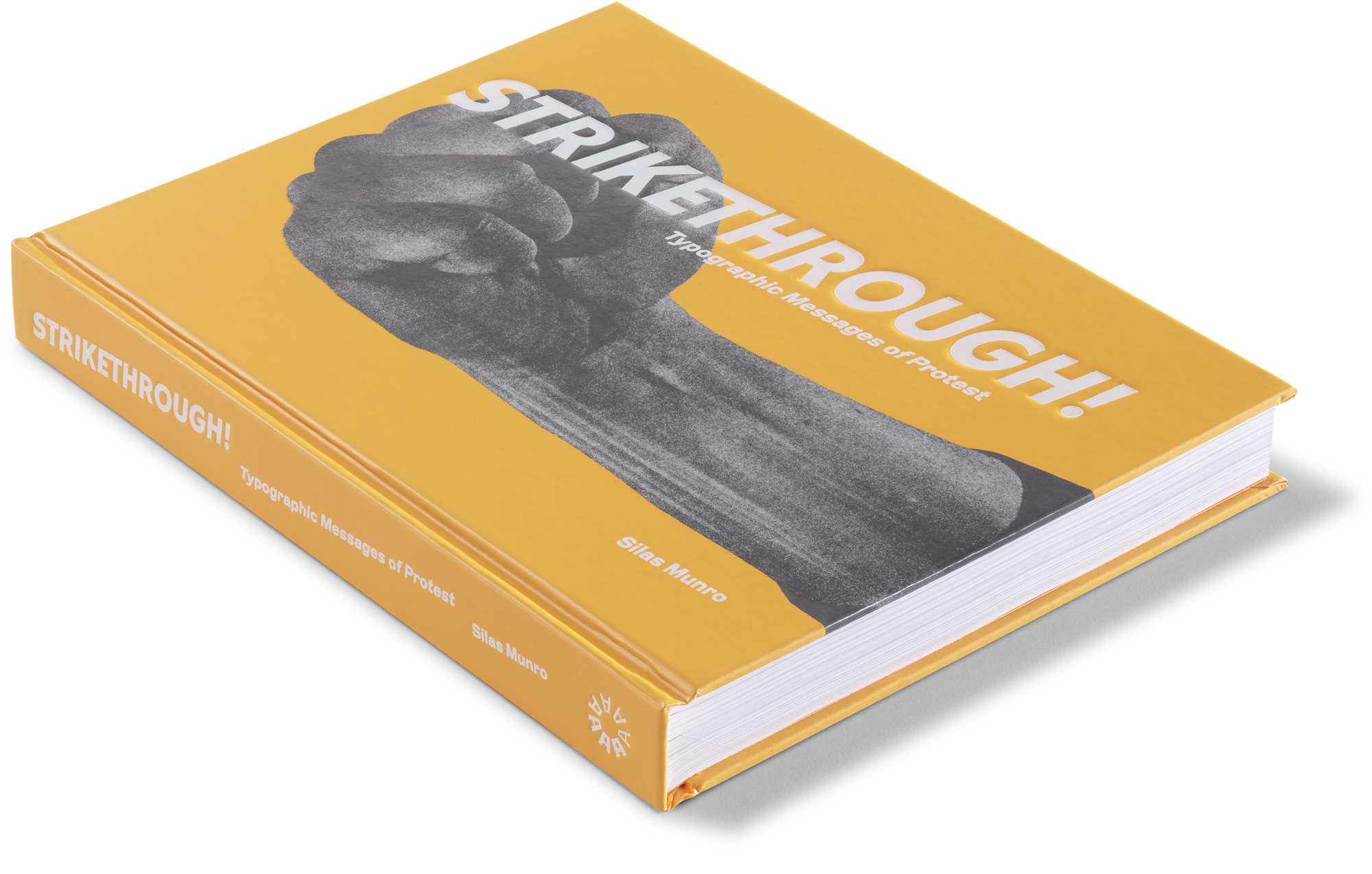
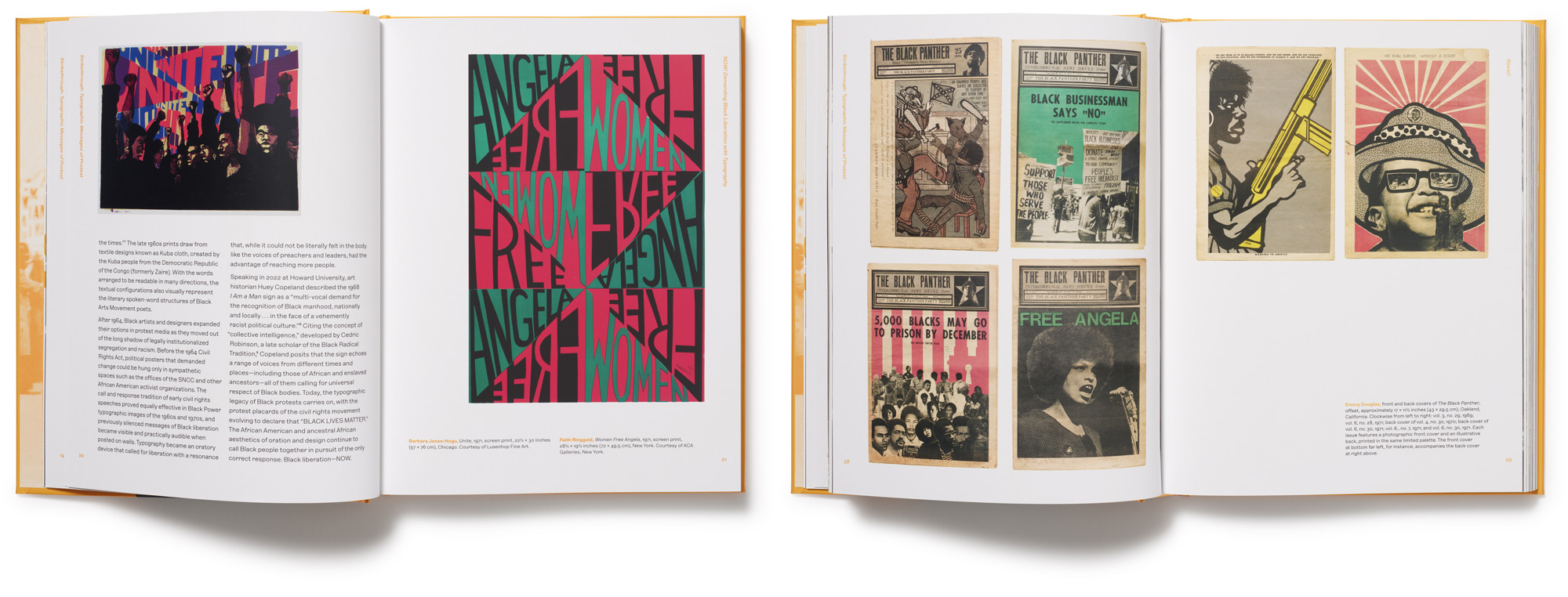
Author Silas Munro, cocreator of the first BIPOC-centered design history course, presents a vibrant collection of broadsides, signs, banners, posters, ephemera, and archival photographs, highlighting the vital roles of letterforms in messages of social change. Informed by Black musical traditions of call and response, Strikethrough amplifies design dialogues that echo across works by feminist, queer, and antiracist activists, anticolonial resisters, labor organizers, environmental defenders, and others. An introduction by Colette Gaiter, plus an essay on protest type and lettering by Stephen Coles and ten profiles of activist-designers including Corita Kent, Ben Shahn, Carlos Cortez, Favianna Rodriguez, and fierce pussy, dig deep into the storied legacies of graphic opposition.
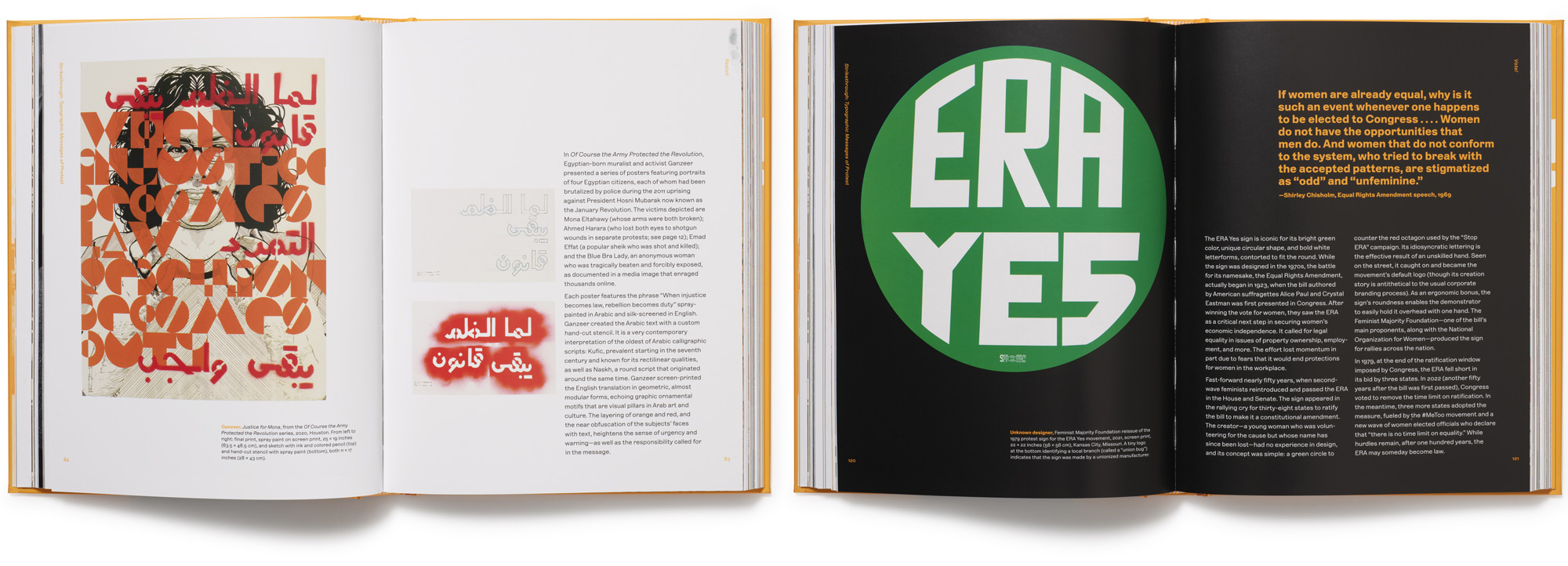
Published in connection with Letterform Archive’s latest gallery exhibition, cocurated by Munro and Coles, this hardcover catalog features state-of-the-art color reproductions and stochastic printing, a custom typeface by Trés Seals based on historical protest lettering, and a bright five-color design by Munro’s design studio Polymode. Revealing how messages make their way to the masses via marker, screen print, spray paint, collage, and both physical and digital type, Strikethrough calls on us all to make our own demands for change.
Artists and designers include: Atelier Populaire, See Red Women's Workshop, Carlos Cortez, Emory Douglas, Fierce Pussy, Ganzeer, Milton Glaser, Guerrilla Girls, Jenny Holzer, Corita Kent, Tibor Kalman, Amos Paul Kennedy Jr., Herb Lubalin, Phase 2, Favianna Rodriguez, Ward Schumaker, Ben Shahn and Wes Wilson.
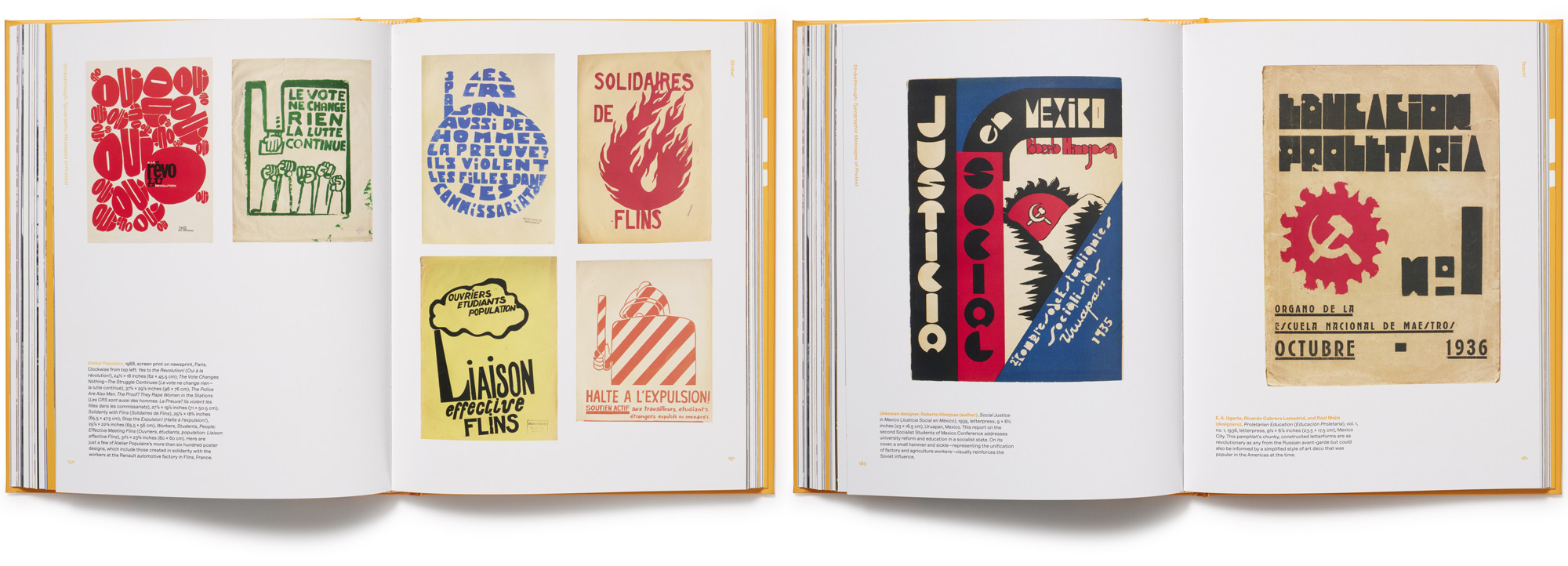
“Finally, a book highlighting typography's role in iconic social movements throughout the nation's history. Strikethrough is a storytelling tour de force composed of well-crafted prose married to poignant images that take us on a powerful, historical journey from the printed page into the streets. This book allows us to witness type oft-overlooked in design's history, that of diverse lay and professional designers relying on the transformative power of vernacular type to demand liberation and to galvanize action that leads to equity and justice. In doing so, it contributes heartily to decolonizing typography's canon.”
— Audrey G. Bennett, Professor, Stamps School of Art & Design, University of Michigan
“Strikethrough is a breakthrough on three levels: Its theme. Its context. Its author…. Munro has injected levels of historical scholarship into Strikethrough’s narrative [while] bringing significant rare materials to this study.... Savor every page, and share this book with others.”
— Steven Heller, PRINT
“In 2016, at a massive gathering to protest restrictions on abortion access in Poland, an elderly woman held a sign that read, ‘I can’t believe I still have to protest this fucking shit.’ Her simple poster struck a chord in activists around the world as we witness the rolling back of hard-earned rights and the continued denial of basic human freedoms. As much as we would like to think that the many wonderfully inventive graphics and powerful anti-racist, anti-sexist, anti-homophobic, anti-imperialist messages contained within Strikethrough are just an interesting part of the past, they should instead be dusted off, studied, and reimagined for today’s struggles.”
— Andrew Satake Blauvelt, Chief Curator and Director, Cranbrook Art Museum
“Strikethrough builds up the bibliography of a field that’s often neglected, and will make the kind of work it covers more discoverable…. An important reference that will leave a mark.”
— Faride Mereb, The Brooklyn Rail
One part coffee-table art book, one part design history, and several parts manifesto, Strikethrough affirms the power of design not only as a tool in support of social transformation but as social transformation itself. The book is an inspiration…. It takes the reader on a blistering journey of typographic resistance, showcased in diligently researched examples and case studies from the nineteenth century to the present…. In his curatorial statement, Munro speaks of the collected works as a typographic call and response, inspired by the call and response in musical patterns imported into the US via the transatlantic slave trade, a tradition that fostered both connection and civic participation. The powerfully brilliant achievement of Strikethrough itself may represent such a call for present and future designers, typographers, activists, and students (for whom this book should be required reading).
“An entangled and complex history of protest graphics.”